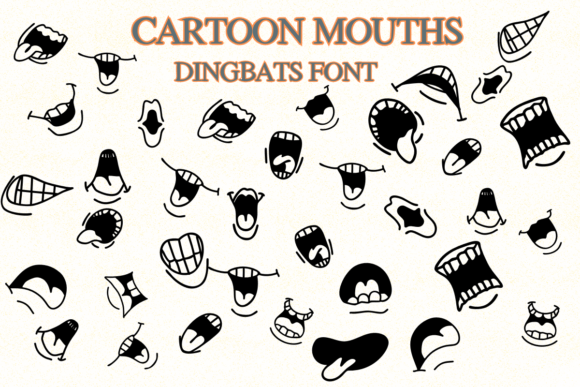
Cartoon Mouths Font: Adding Playfulness and Personality to Your Designs
Are you looking for a unique and playful way to add character and expression to your designs? Look no further than the Cartoon Mouths font, a delightful dingbat font featuring a variety of open mouths that are perfect for creating lively and animated visuals. In this article, we’ll explore the features and benefits of Cartoon Mouths, and show you how to use this fun font to take your designs to the next level.
What is Cartoon Mouths Font?
Cartoon Mouths is a playful dingbat font that features a range of open mouths, each with its own unique expression and character. This font is perfect for designers who want to add a touch of whimsy and personality to their projects, whether they’re creating cartoons, comic strips, or playful graphics. With Cartoon Mouths, you can easily create lively and animated visuals that are sure to capture the attention of your audience.
Key Features of Cartoon Mouths Font
- Variety of Open Mouths: Cartoon Mouths features a range of open mouths, each with its own unique expression and character. From shocked and surprised to happy and excited, this font has everything you need to bring your designs to life.
- Playful and Whimsical: This font is perfect for designers who want to add a touch of playfulness and whimsy to their projects. Whether you’re creating cartoons, comic strips, or playful graphics, Cartoon Mouths is sure to add a smile to your audience’s face.
- Easily Customizable: With Cartoon Mouths, you can easily customize your designs to fit your brand’s style and personality. Use the font to create custom graphics, or combine it with other fonts and design elements to create something truly unique.
- Perfect for a Range of Projects: Cartoon Mouths is versatile enough to be used in a range of projects, from cartoons and comic strips to playful graphics and illustrations.
Benefits of Using Cartoon Mouths Font
So why should you use Cartoon Mouths font in your designs? Here are just a few benefits of using this fun and playful font:
- Adds Character and Expression: Cartoon Mouths allows you to add character and expression to your designs, making them more engaging and memorable.
- Creates Lively and Animated Visuals: With Cartoon Mouths, you can easily create lively and animated visuals that are sure to capture the attention of your audience.
- Perfect for Playful Brands: If you’re a brand that wants to convey a playful and whimsical personality, Cartoon Mouths is the perfect font for you.
- Easily Customizable: This font is easily customizable, making it perfect for designers who want to create unique and personalized designs.
How to Use Cartoon Mouths Font
Using Cartoon Mouths font is easy! Here are a few tips to get you started:
- Choose the Right Mouth: With so many mouths to choose from, select the one that best fits the tone and personality of your design.
- Experiment with Different Sizes and Colors: Don’t be afraid to experiment with different sizes and colors to create a unique and eye-catching design.
- Combine with Other Fonts and Design Elements: Combine Cartoon Mouths with other fonts and design elements to create a truly unique and personalized design.
- Have Fun!: Most importantly, have fun with Cartoon Mouths! This font is all about adding playfulness and personality to your designs, so don’t be afraid to get creative and try new things.
Examples of Cartoon Mouths Font in Use
Here are a few examples of Cartoon Mouths font in use:
- Cartoons and Comic Strips: Cartoon Mouths is perfect for creating cartoons and comic strips that require a range of expressions and emotions.
- Playful Graphics and Illustrations: This font is also great for creating playful graphics and illustrations that require a touch of whimsy and personality.
- Social Media Graphics: Use Cartoon Mouths to create eye-catching social media graphics that are sure to capture the attention of your audience.
- Advertising and Marketing Materials: This font is also perfect for creating advertising and marketing materials that require a playful and attention-grabbing design.
In conclusion, Cartoon Mouths font is a fun and playful dingbat font that is perfect for adding character and expression to your designs. With its range of open mouths and easily customizable features, this font is sure to bring a touch of whimsy and personality to your projects. Whether you’re creating cartoons, comic strips, or playful graphics, Cartoon Mouths is the perfect font for designers who want to create lively and animated visuals.